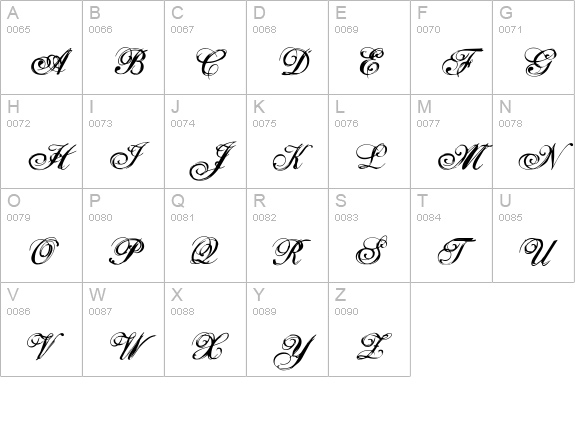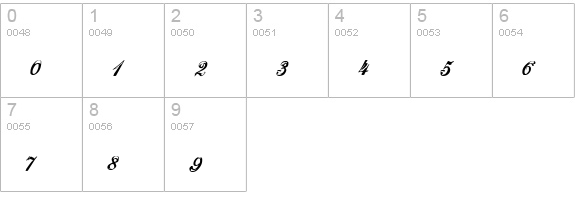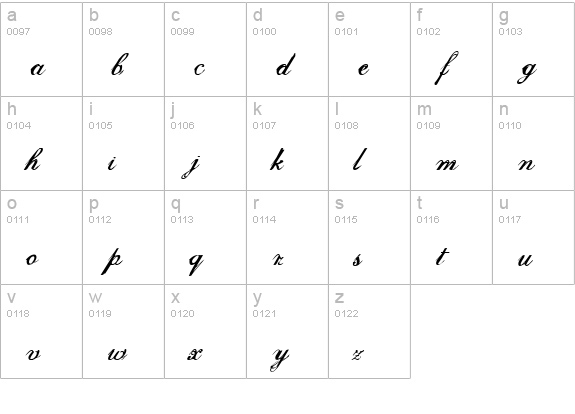
Selfish Font Details
Introducing Selfish, a captivating and charismatic font that effortlessly commands attention. With its bold and assertive letterforms, this font exudes confidence and individuality, making it the perfect choice for projects that require a touch of audacity and self-assuredness. Selfish is a versatile typeface that seamlessly blends modernity with a hint of vintage charm. Its unique combination of sharp edges and smooth curves creates a dynamic visual impact, making each character stand out with its own distinct personality. Whether used for headlines, logos, branding, or any other creative endeavor, Selfish adds a touch of boldness and sophistication to any design. One of the most remarkable features of Selfish is its versatility. It effortlessly adapts to various design styles, whether it's a sleek and minimalistic layout or a bold and energetic composition. Its wide range of weights and styles allows for endless creative possibilities, ensuring that every project can be tailored to perfection. And the best part? Selfish is available for free download exclusively at FontsMarket.com. This means that you can unleash your creativity without any limitations or financial constraints. Take advantage of this unique opportunity to add this remarkable font to your typography arsenal, and watch as your designs come to life with a touch of Selfish's distinctive flair. In conclusion, Selfish is an extraordinary font that embodies confidence, individuality, and creative expression. With its bold letterforms and versatile nature, it is a valuable asset for any designer or creative professional. Download Selfish for free at FontsMarket.com and elevate your designs to new heights.